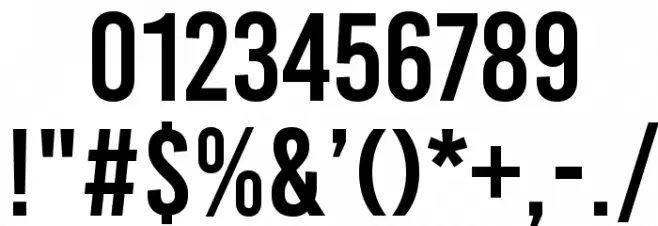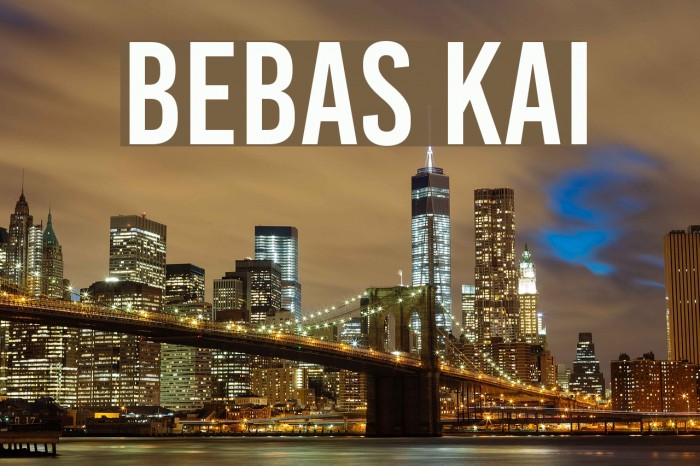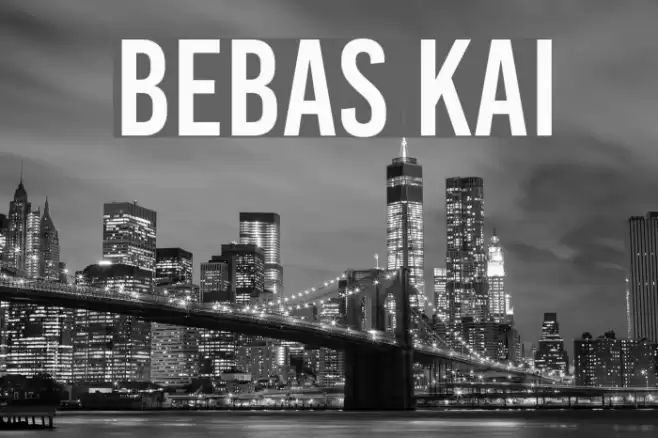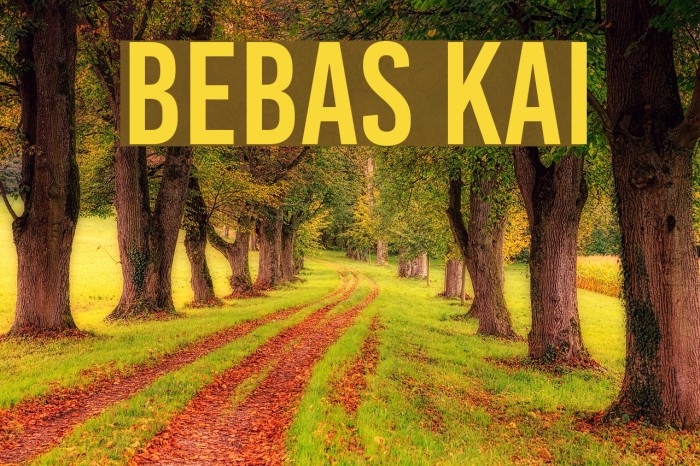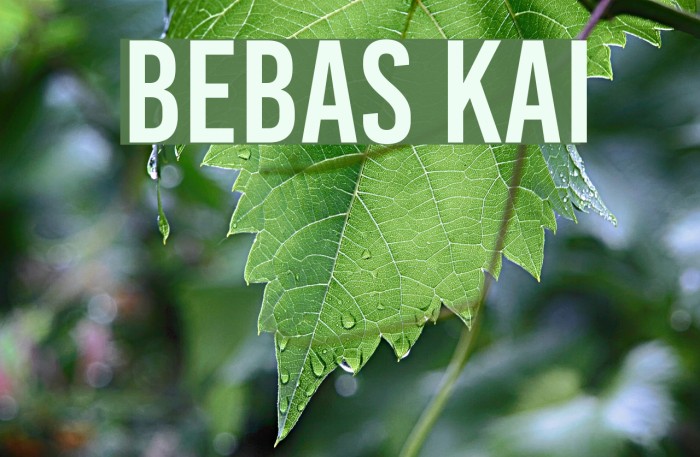
Bebas Kai Font
Bebas Kai Description
This font features a clean and bold sans-serif style, characterized by its tall, narrow letterforms and uniform stroke width. The uppercase letters are prominent and assertive, making them ideal for impactful headlines. The numerals and special characters maintain the same boldness, ensuring consistency across different text elements. Its simplicity and clarity make it versatile for various design applications, from modern branding to editorial layouts. The font's geometric precision and lack of decorative elements contribute to its contemporary aesthetic, making it suitable for both digital and print media.
| Proposed Projects | Ideal for headlines, posters, branding, and editorial design. |